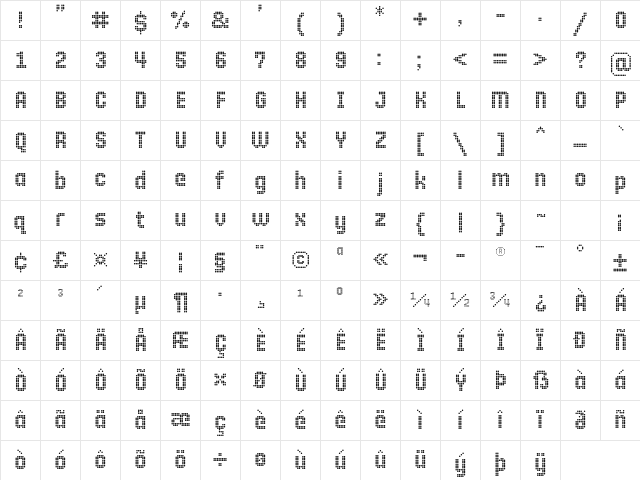
10 Pixel Bold Regular
Designer: jaikishan Patel
Design Context for 10 Pixel Bold
10 Pixel Bold is rooted in pixel-grid construction, making it a natural fit for game UI, retro computing aesthetics, and digital nostalgia projects.
Pro Tip: Use 10 Pixel Bold at sizes that align with its pixel grid for the sharpest rendering - scaling to non-integer multiples can introduce unwanted blur.